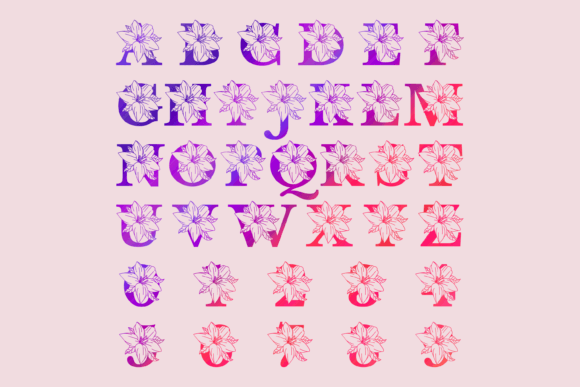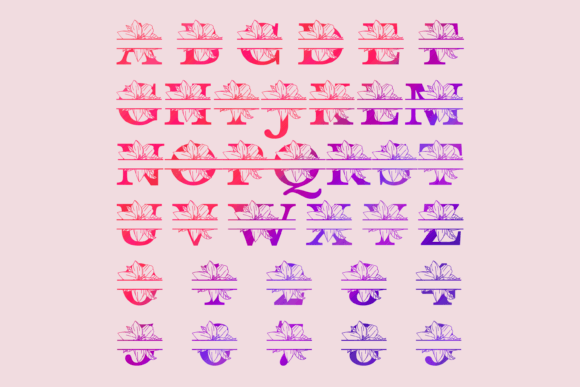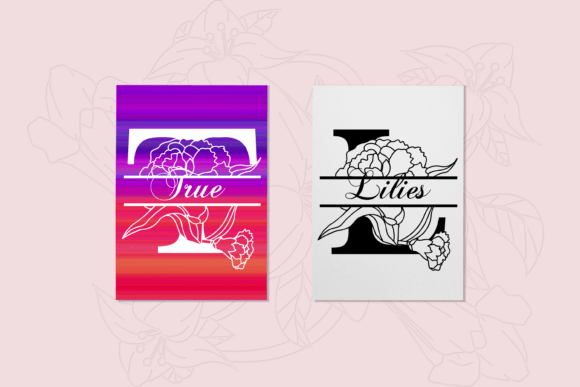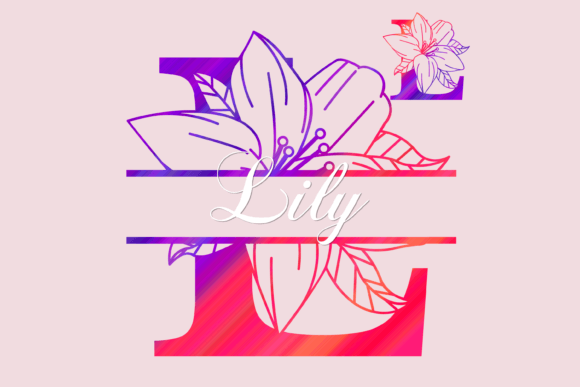
Introduction to Lily Split Font
Lily Split is an elegant botanical decorative font consisting of duo styles (regular & split).
This font is ideal for adding special decoration to your crafts Whether you use it for custom designs, DIY crafts, or just any creation that requires a lovely touch, this font will be an amazing choice.
Key Features of Lily Split Font